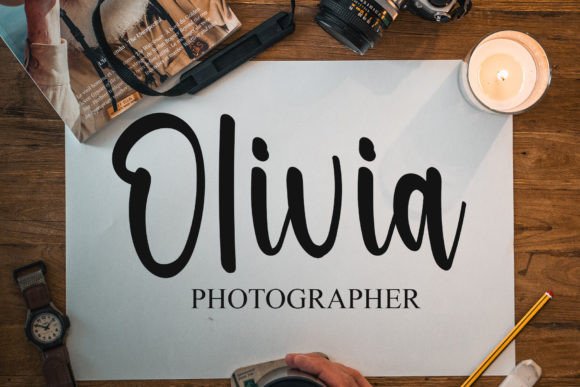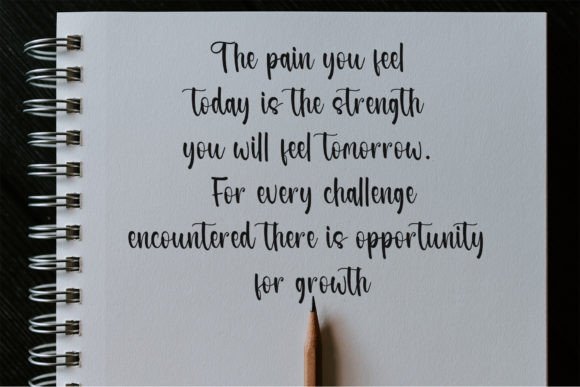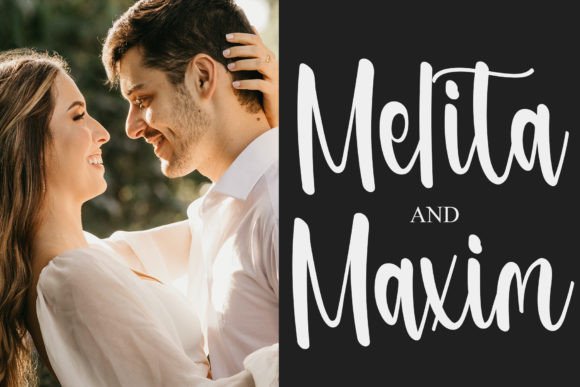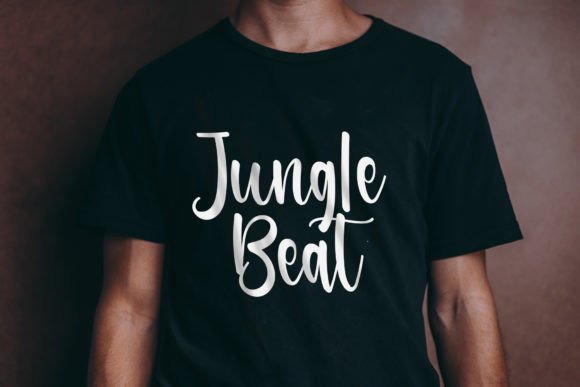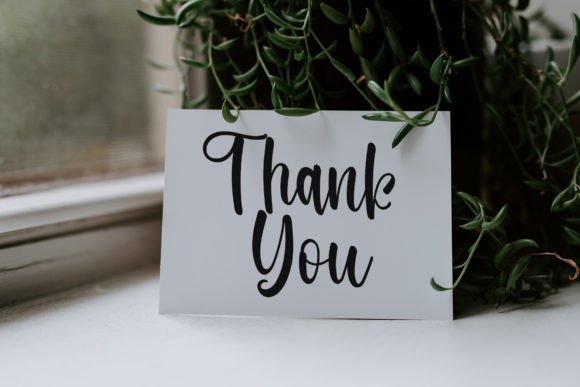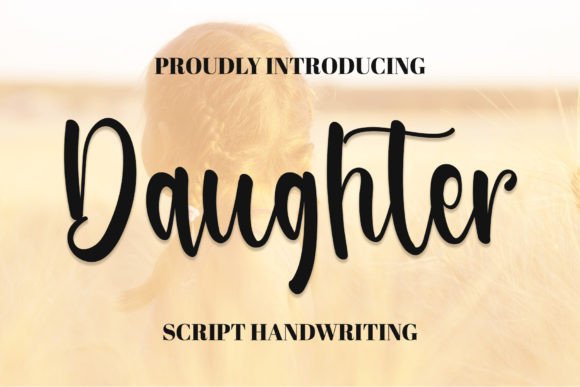
Introducing Daughter Font: A Stylish and Dainty Script Font for Your Creative Projects
Are you a designer or crafter looking for a beautiful script font to elevate your projects? Look no further than Daughter Font, a stylish and dainty script font that’s perfect for a variety of creative endeavors. In this article, we’ll explore the features and benefits of Daughter Font, and show you how it can add a touch of elegance to your logos, branding projects, labels, photography, watermarks, and more.
What is Daughter Font?
Daughter Font is a gorgeous script font that’s designed to add a touch of sophistication and whimsy to your projects. Its delicate lines and intricate swashes make it perfect for creating beautiful, eye-catching designs that stand out from the crowd. Whether you’re working on a logo, a branding project, or a special event, Daughter Font is the perfect choice.
Key Features of Daughter Font
So, what makes Daughter Font so special? Here are just a few of its key features:
- PUA Encoding: Daughter Font is PUA (Private Use Area) encoded, which means you can access all of the glyphs and swashes with ease. This makes it easy to customize your designs and add your own personal touch.
- Stylish and Dainty: Daughter Font is a stylish and dainty script font that’s perfect for creating beautiful, elegant designs.
- Versatile: Daughter Font is suitable for a wide range of projects, including logos, branding projects, labels, photography, watermarks, and more.
What Can I Use Daughter Font For?
Daughter Font is a versatile font that can be used for a wide range of projects, including:
- Logos: Create a beautiful, eye-catching logo for your business or brand with Daughter Font.
- Branding Projects: Use Daughter Font to create a cohesive brand identity that includes business cards, letterheads, and more.
- Labels: Add a touch of elegance to your product labels with Daughter Font.
- Photography: Use Daughter Font to create beautiful watermarks or overlays for your photos.
- Special Events: Create stunning invitations, programs, and other materials for special events like weddings, baby showers, and more.
Why Choose Daughter Font?
So, why should you choose Daughter Font for your projects? Here are just a few reasons:
- Unique and Elegant: Daughter Font is a unique and elegant script font that’s sure to make your designs stand out.
- Easy to Use: With PUA encoding, Daughter Font is easy to use and customize, even if you’re not a professional designer.
- High-Quality: Daughter Font is a high-quality font that’s designed to produce crisp, clear results, even at small sizes.
Whether you’re a professional designer or a crafty DIY enthusiast, Daughter Font is a great addition to your font library. Its unique and elegant design makes it perfect for a wide range of projects, from logos and branding projects to labels and special events. So why not give it a try? With Daughter Font, you can add a touch of sophistication and whimsy to your designs, and take your creativity to the next level.